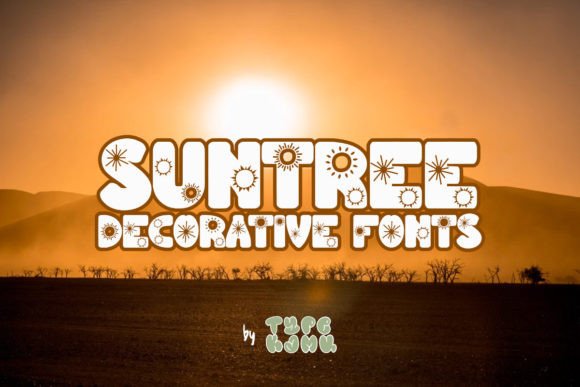
Embark on a delightful printing journey with Suntree Font, the decorative font family that radiates joy, creativity, and boundless possibilities. Crafted by the talented designers at Barock Studio, Suntree is a font that captures the essence of summer, sunshine, and endless possibilities.
With its bright and cheerful personality, Suntree is the perfect choice for adding a touch of fun and whimsy to your printing projects. Its playful and energetic curves evoke a sense of optimism and adventure, making it ideal for creating designs that are sure to capture attention. Unleash your creativity and let Suntree's radiant energy illuminate your designs.
Step into a world where imagination thrives and ideas bloom with Suntree Font. As a small print font, it excels in transforming ordinary text into captivating works of art. Whether you're designing t-shirts, mugs, tumblers, book covers, or posters, Suntree's intricate details and bold strokes add depth and character to every letter. Its compact design allows for maximum impact in limited spaces, making it a perfect choice for creating eye-catching headlines, logos, and branding elements.
Immerse yourself in the vibrant world of Suntree Font, where colors dance and imagination takes flight. This decorative font is a treasure trove of artistic possibilities, allowing you to express your unique style through typography. Its playful spirit invites you to experiment with different color combinations, backgrounds, and layouts, creating designs that are as unique as your vision. Embrace the magic of Suntree Font and let your creativity shine.
With Suntree Font, the possibilities are infinite. Its versatility extends to a wide range of applications, making it a valuable asset for designers, crafters, and entrepreneurs alike. Create custom merchandise that reflects your brand's personality, design eye-catching marketing materials that demand attention, or simply add a touch of whimsy to your personal projects. Suntree Font is the key to unlocking your creative potential and transforming your printing dreams into stunning realities.
Don't let your printing projects be ordinary. Ignite your imagination with Suntree Font and experience the transformative power of truly exceptional typography. Embrace the sun-kissed charm of this decorative font and watch as your designs come alive with vibrancy, personality, and the promise of endless possibilities. Step into the world of Suntree Font and let your creativity soar.